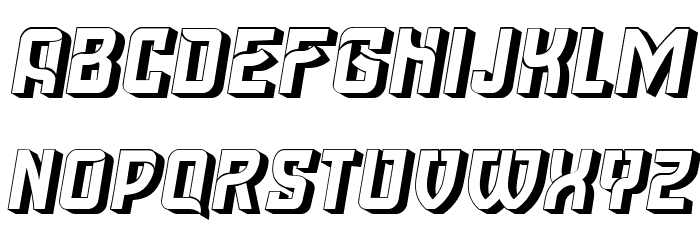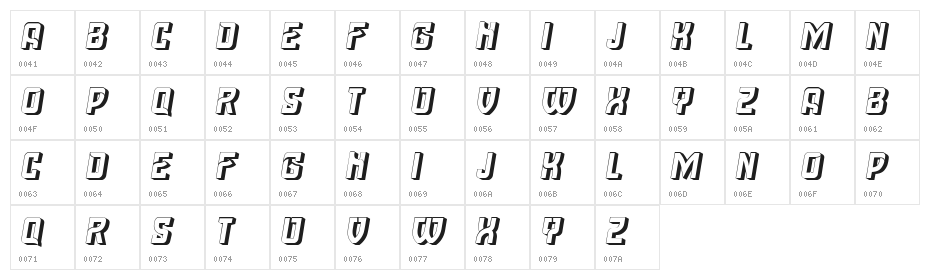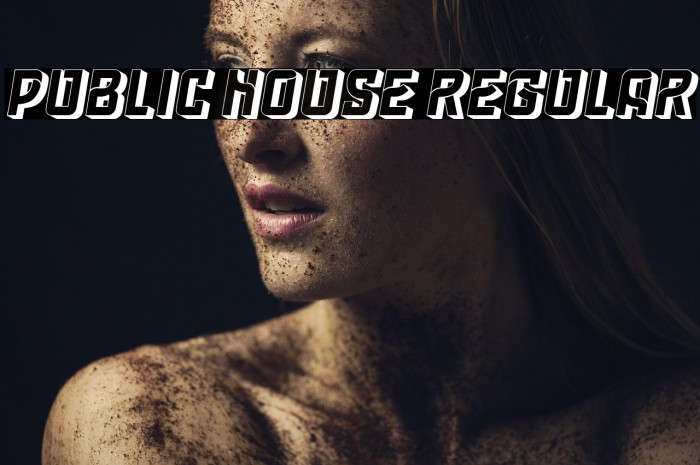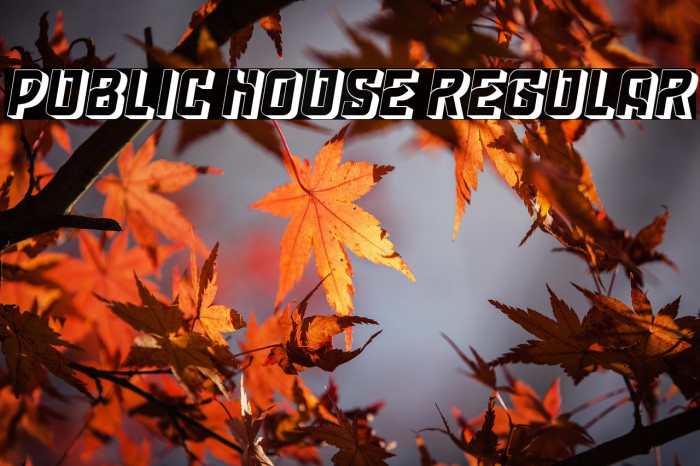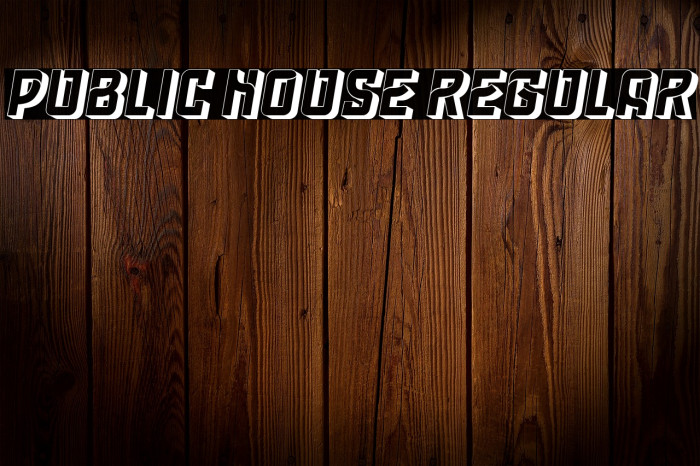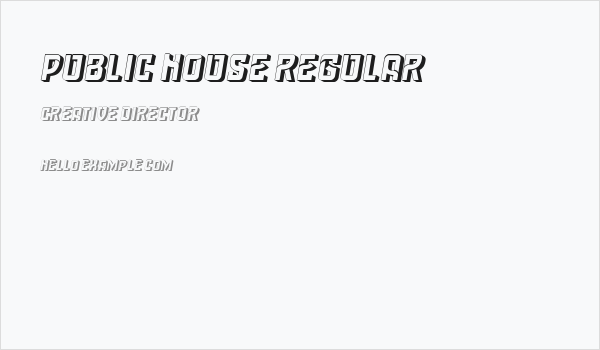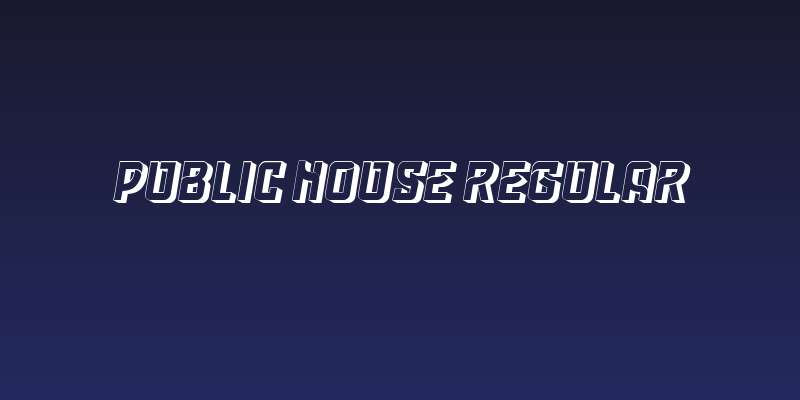
Public House Regular Font
Public House Regular Description
This font features a bold, three-dimensional style with a strong presence. Each character is designed with a shadow effect, giving it a sense of depth and dynamism. The letters are uppercase, with sharp angles and clean lines, creating a modern and impactful look. The font's geometric structure and bold weight make it suitable for attention-grabbing designs. Its unique style is ideal for projects that require a standout visual element, such as posters, headlines, or branding materials.